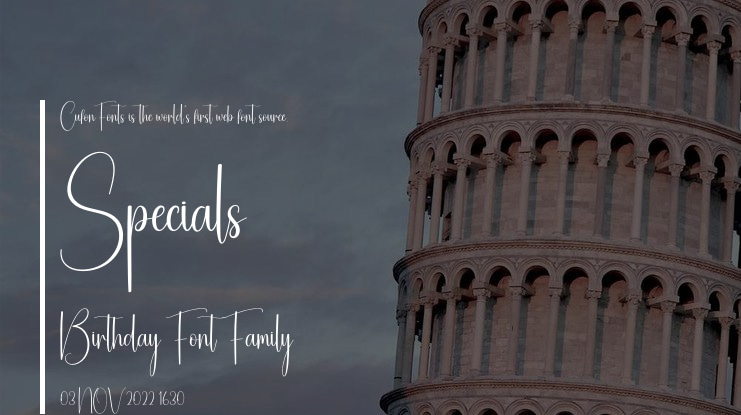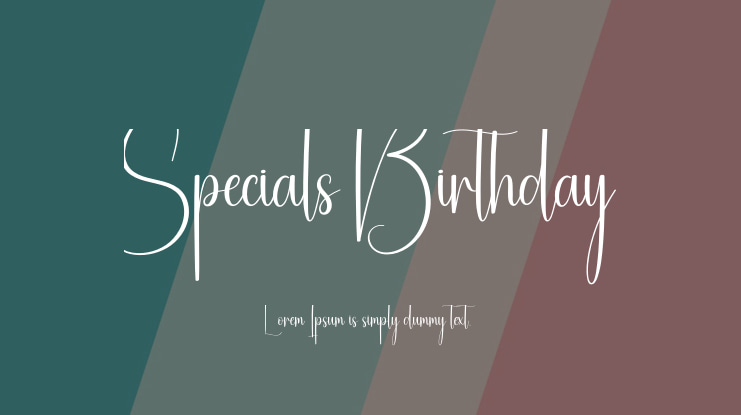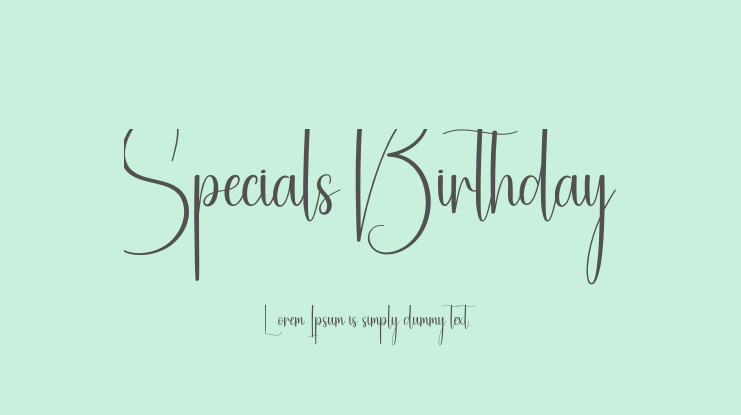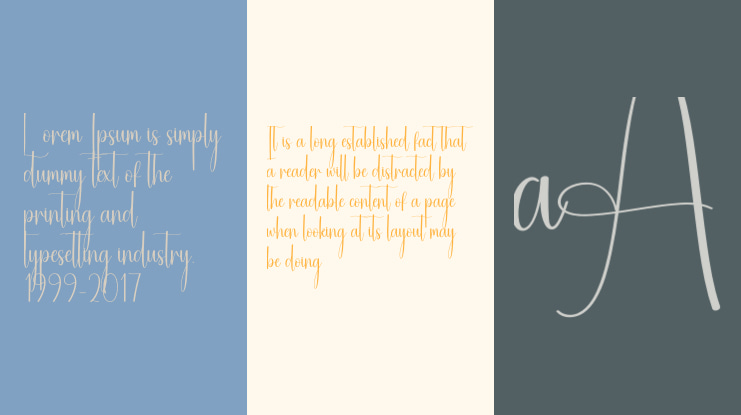
We offer a range of special creative products that will provide you with an extraordinary experience. Our latest style font is ideal for a variety of applications such as wall displays, wedding invitations, social media logos, advertisements, product packaging and design, labels, photography, watermarks, invitations, stationery, and any project requiring a touch of handwritten elegance.